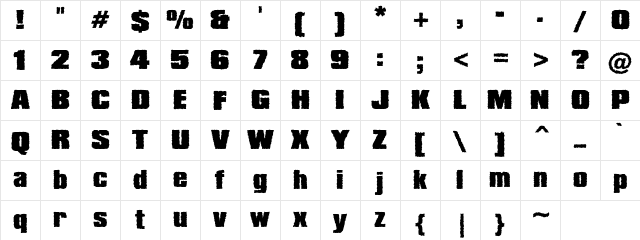
Complete Grunge Kompak Black Regular glyph index. Displaying only characters natively supported by Grunge Kompak Black Regular font.
Grunge Kompak Black embraces imperfection - its rough, textured character adds raw authenticity to designs that want to feel lived-in and unconventional.
Pro Tip: Use Grunge Kompak Black at larger sizes where the texture and irregularity of each letterform can be clearly seen - it loses its character at small sizes.